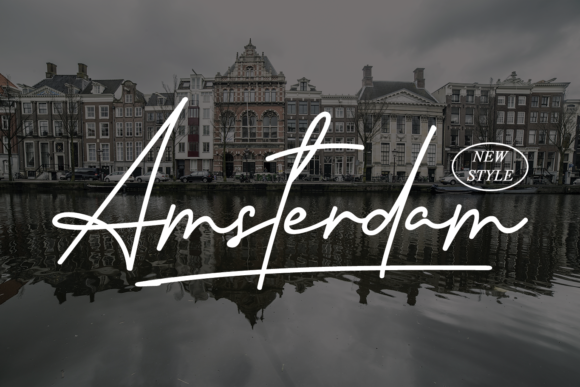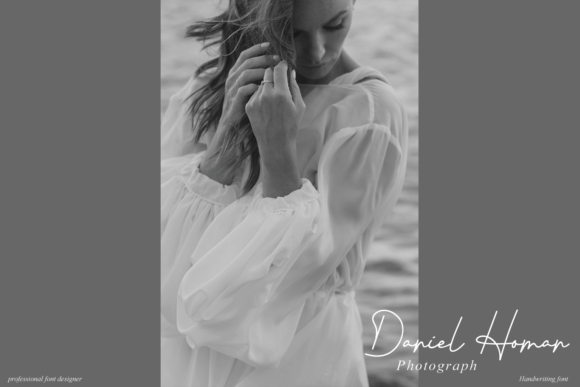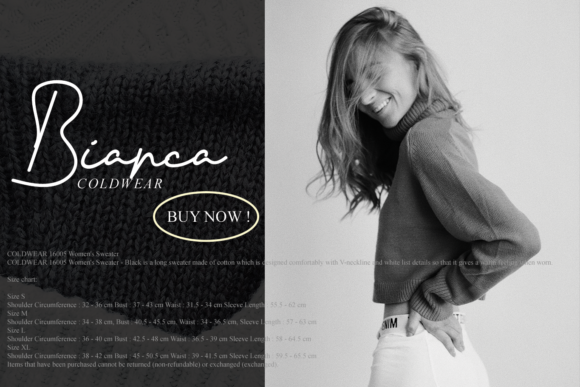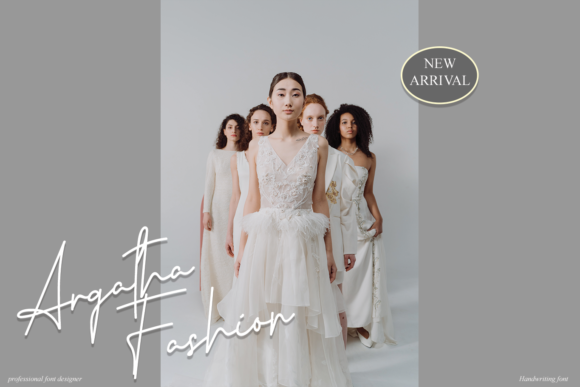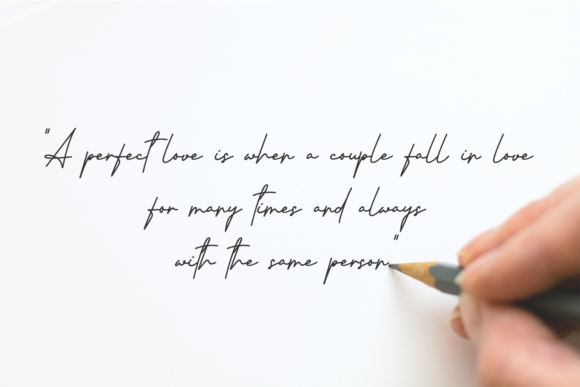
Amsterdam Font
About Amsterdam Font
Amsterdam is a lovely and delicate script font that exudes elegance and class. This font was particularly crafted for those who need a beautiful and refreshing look to their designs.